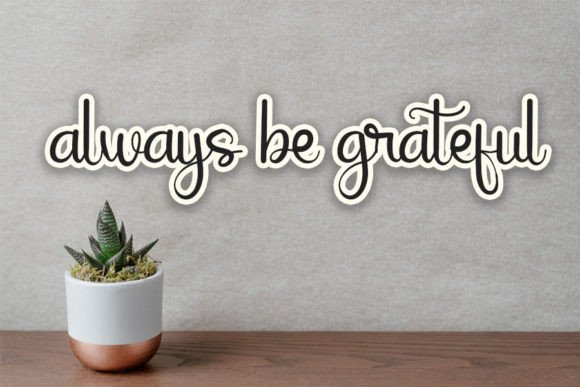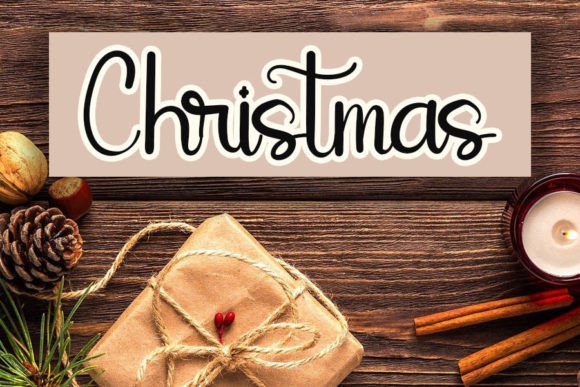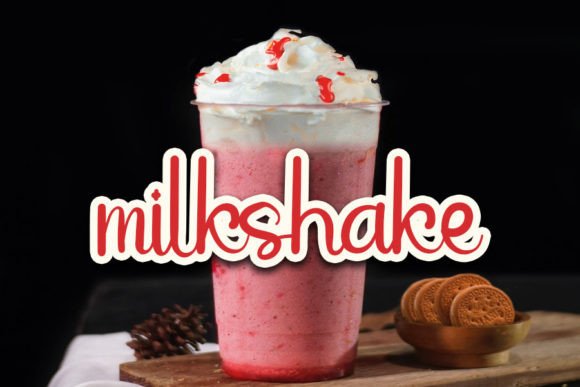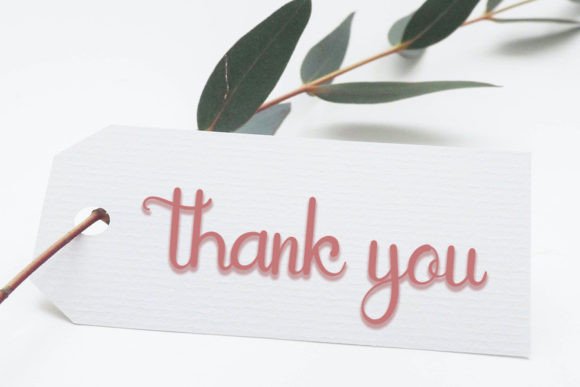
The Sweet Charm of Blueprint Font: A Designer’s Delight
I’ll never forget the time I was working on a wedding invitation project, and my client asked for a font that was both romantic and playful. I scoured the internet, tried out countless fonts, but nothing seemed quite right. That was until I stumbled upon Blueprint font. This sweet and cursive handwritten font instantly captured the essence of what my client was looking for. In this article, I’ll share with you why I’m obsessed with Blueprint font and how you can make the most of it in your designs.
A Personal Review: What I Love About Blueprint Font
Blueprint font has quickly become one of my go-to fonts for a variety of design projects. Here are some things that I love about it:
- ✨ Sweet and playful vibe: Blueprint font has a gentle, cursive feel that’s perfect for adding a touch of whimsy to your designs.
- ✅ Highly legible: Despite its playful nature, Blueprint font is surprisingly easy to read, making it perfect for body text or headings.
- 💕 Romantic feel: This font has a certain charm that’s hard to resist. It’s perfect for wedding invitations, Valentine’s Day cards, or any other project that requires a touch of romance.
While Blueprint font is an amazing addition to any design project, there are a few quirks to be aware of:
- 🤔 Limited character set: While Blueprint font has a wide range of characters, it may not have every special character or glyph you need. Be sure to check the font’s capabilities before committing to a project.
- ⚠️ Not suitable for body text: While Blueprint font is legible, it’s still a script font and may not be the best choice for long blocks of body text.
The Story Behind Blueprint Font
While I couldn’t find any information on the exact designer behind Blueprint font, it’s clear that this font was created with love and care. The gentle curves and playful feel of Blueprint font make it a joy to use in any design project.
| Font Name | Blueprint Font |
| Author | Snowman Studio |
| What is Blueprint font best used for? | Blueprint font is perfect for projects that require a sweet and playful touch, such as wedding invitations, Valentine’s Day cards, or children’s party invitations. |
| Is Blueprint font suitable for body text? | While Blueprint font is legible, it’s still a script font and may not be the best choice for long blocks of body text. It’s better suited for headings or short paragraphs. |